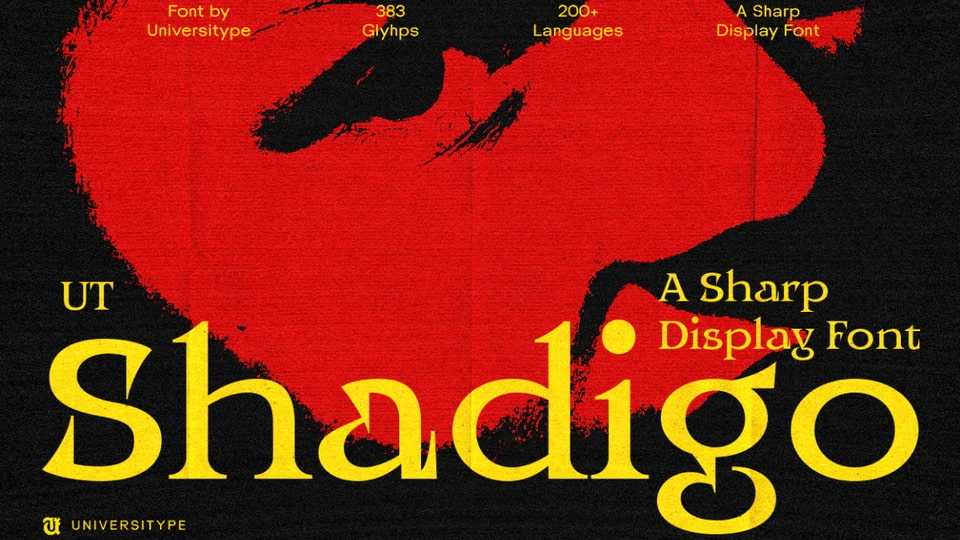
Download UT Shadigo font, a serif typeface that brings contrast and confidence into every letter it touches. It’s a typeface that knows exactly who it is—sleek, sharp, and just a little rebellious.
Designer: Universitype Foundry